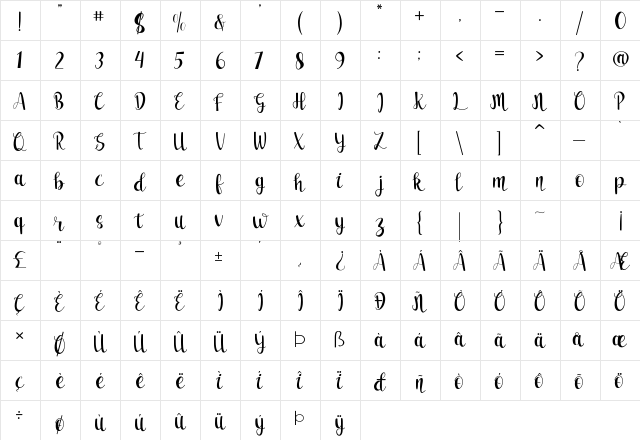
Love Roulette Regular
| Designer | Fachranheit 2020 |
Design Context for Love Roulette Typeface
Love Roulette is a composed and adaptable typeface that performs quietly and consistently across a wide range of design contexts.